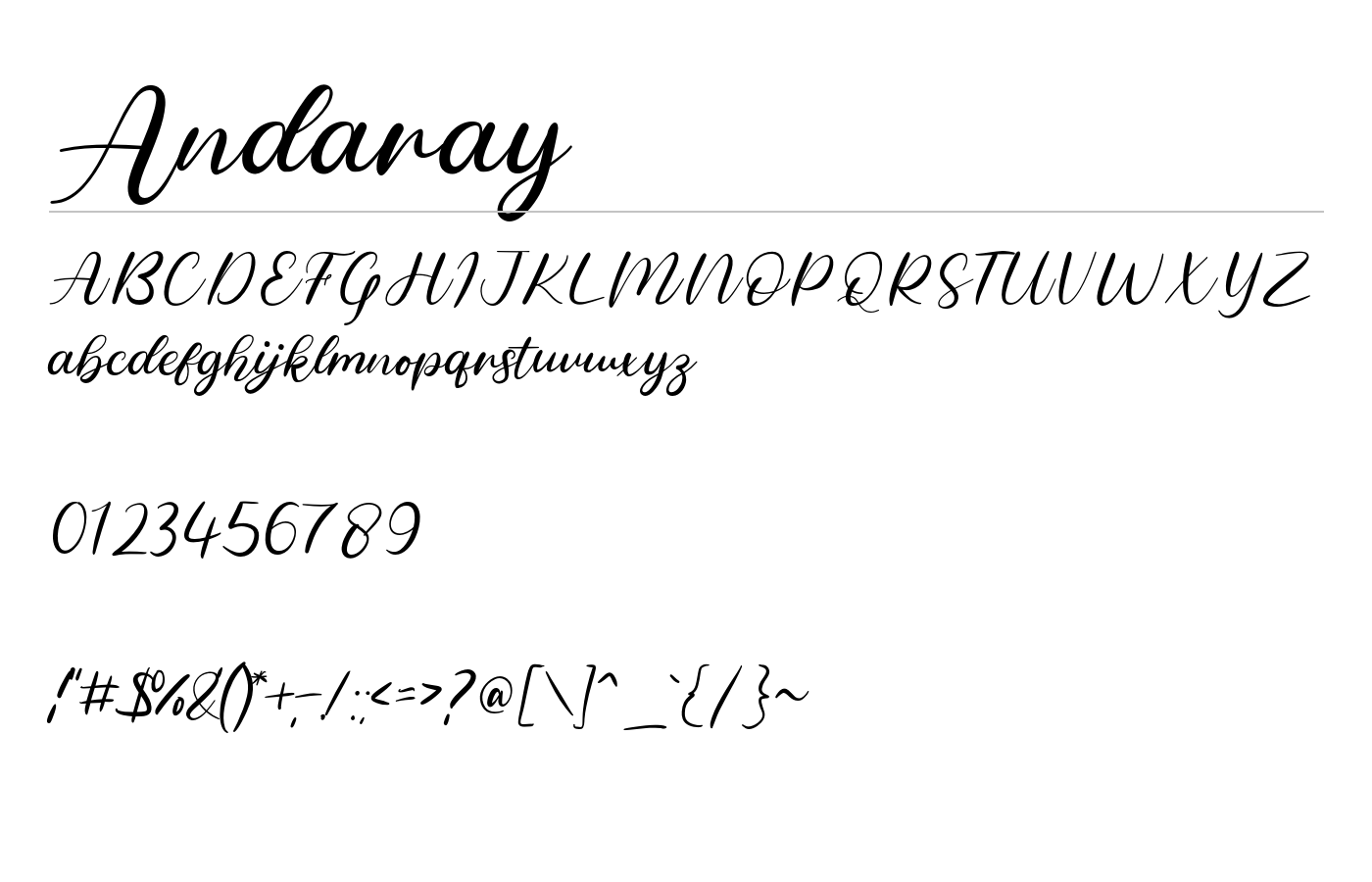
Andaray is an elegant script font with a smooth, flowing style that mimics natural handwriting. Its light weight and gentle curves create a refined, sophisticated look ideal for invitations, branding, and other designs that seek a personal yet polished feel. This font works best for decorative purposes where a touch of grace and warmth is desired.
Andaray Font